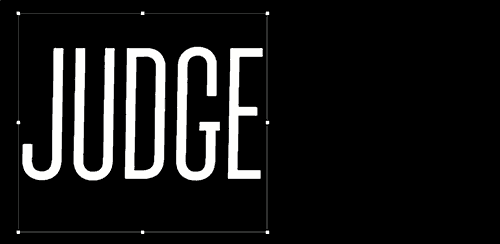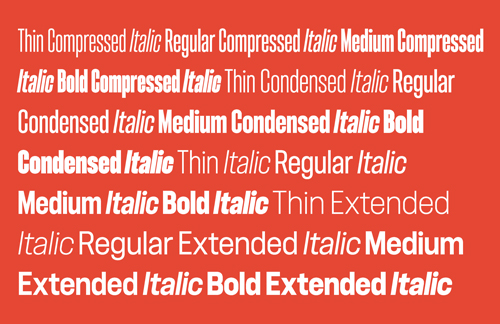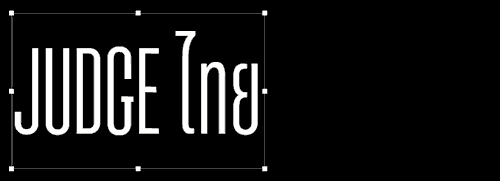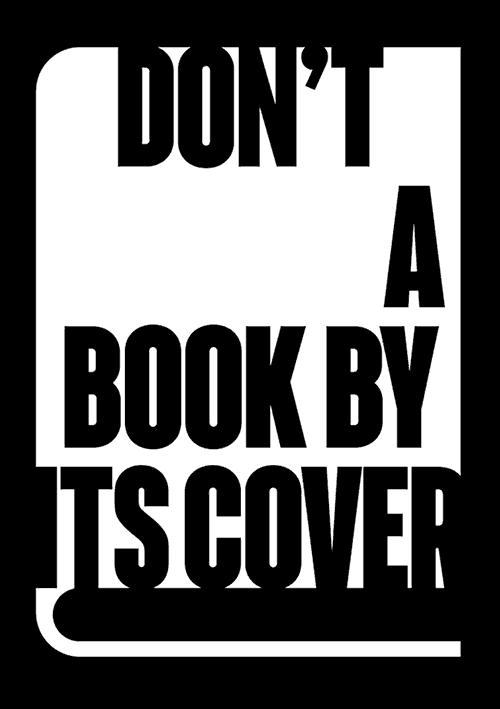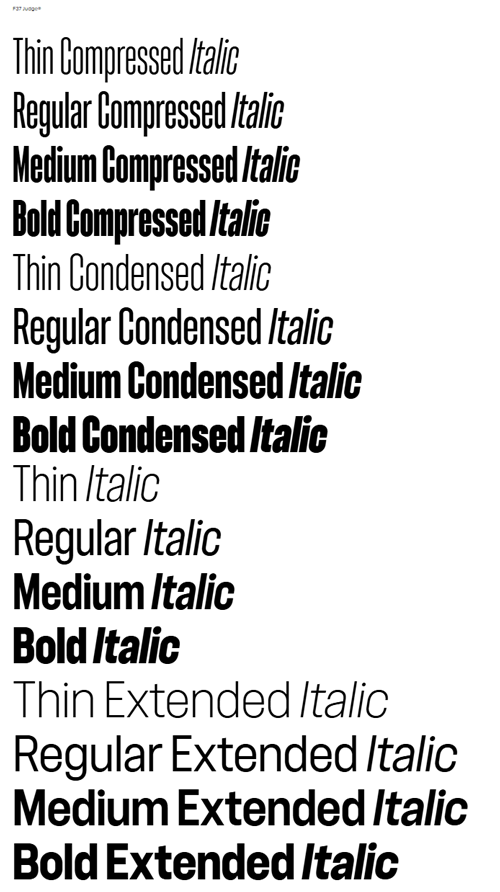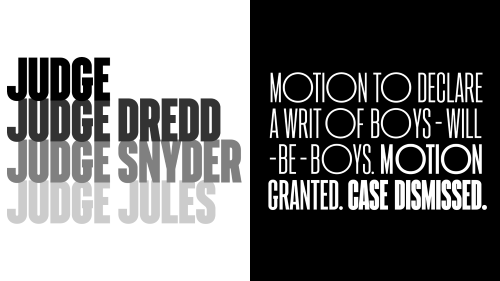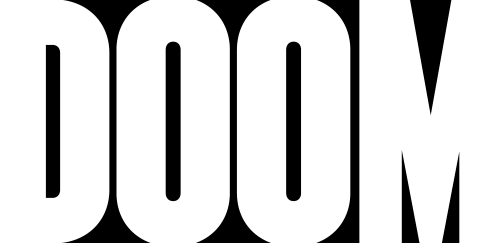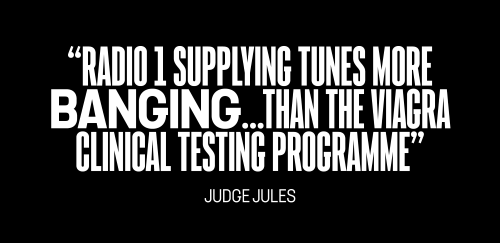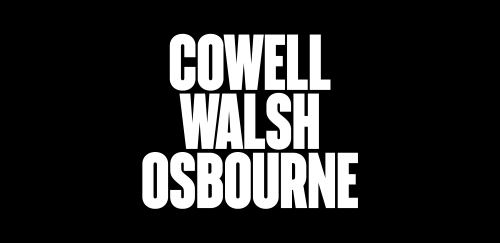
- F37 Judge tips its hat to the trusty, utilitarian font DIN, along with old wood-type specimen books. It’s a versatile, impactful geometric sans-serif that really looks the part in XL sizes. This makes it the perfect choice for headlines that need to pack a punch — from posters to editorial layouts. F37 Judge comes in plenty of different weights (32, in fact) with normal and condensed widths alongside matching italics. It’s further bolstered with OpenType, giving you stylistic alternates, such as the ‘O’, for a completely different, unique look. We’ve also built in stylised diacritics, allowing you to tightly space your headlines.